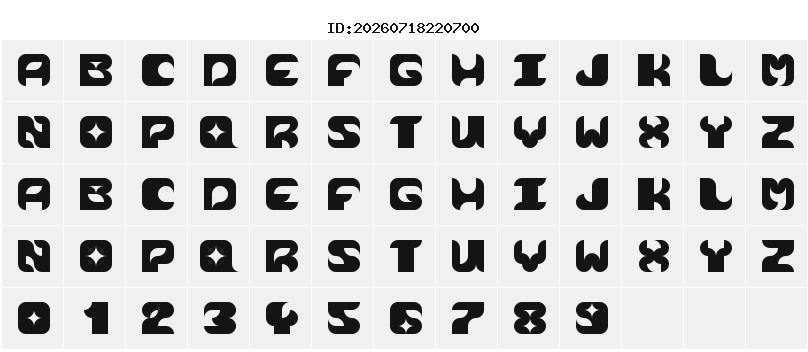
• Font Name: Cosmik Orchestra
• Full Font Name: Cosmik Orchestra
• Designer: imagex
About Cosmik Orchestra.ttf
Cosmik Orchestra.ttf is a modern, elegant sans-serif font designed for ultimate readability and visual harmony. Perfect for branding, headlines, web design, and print materials.